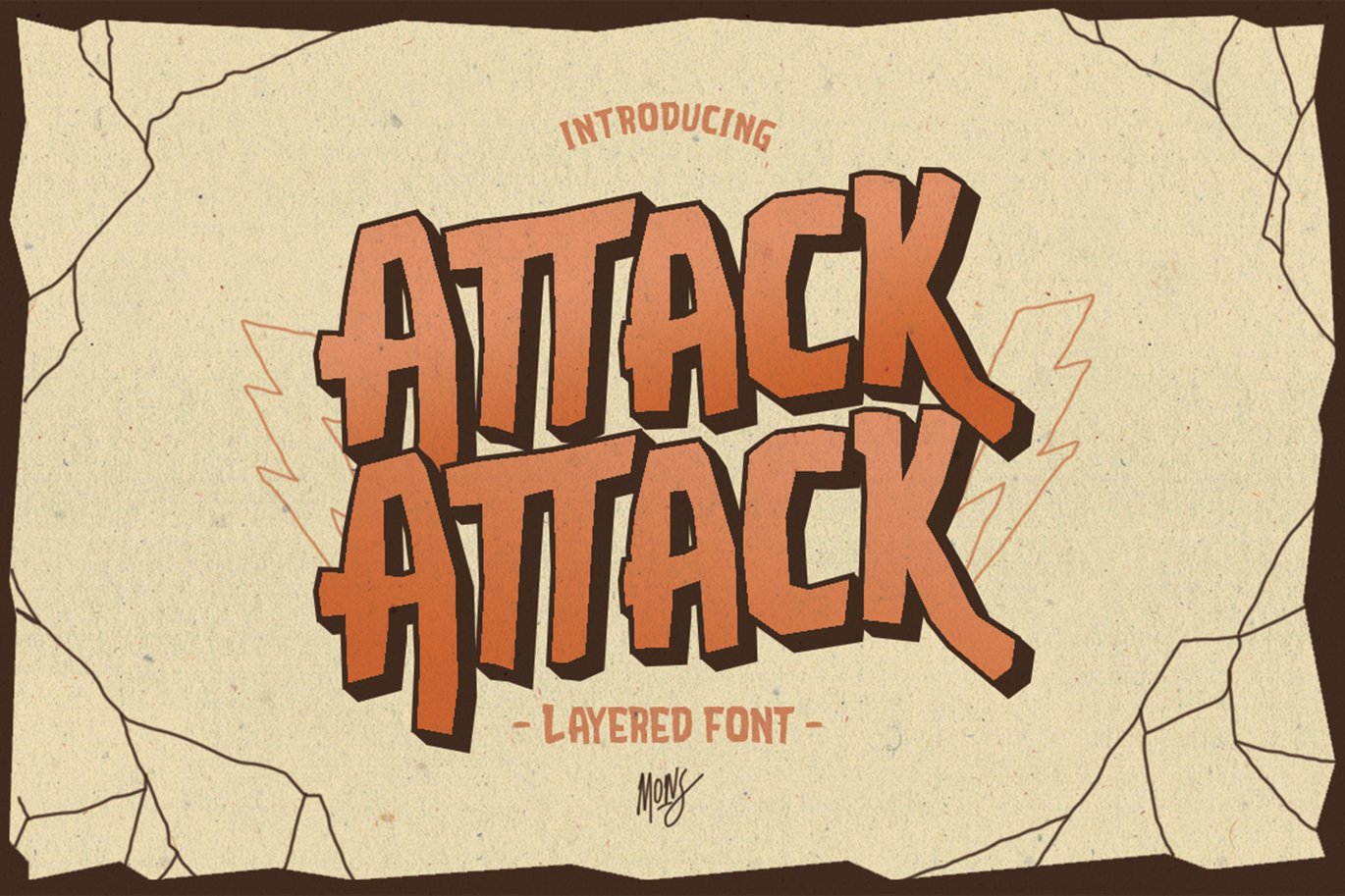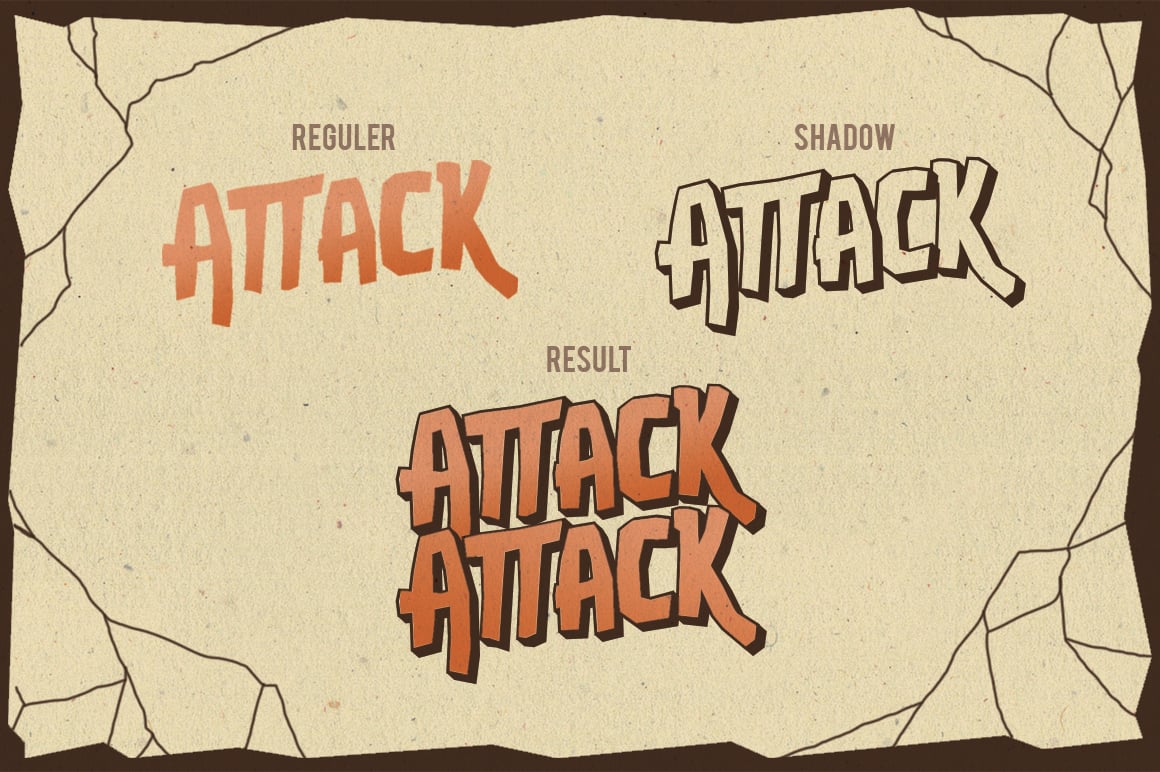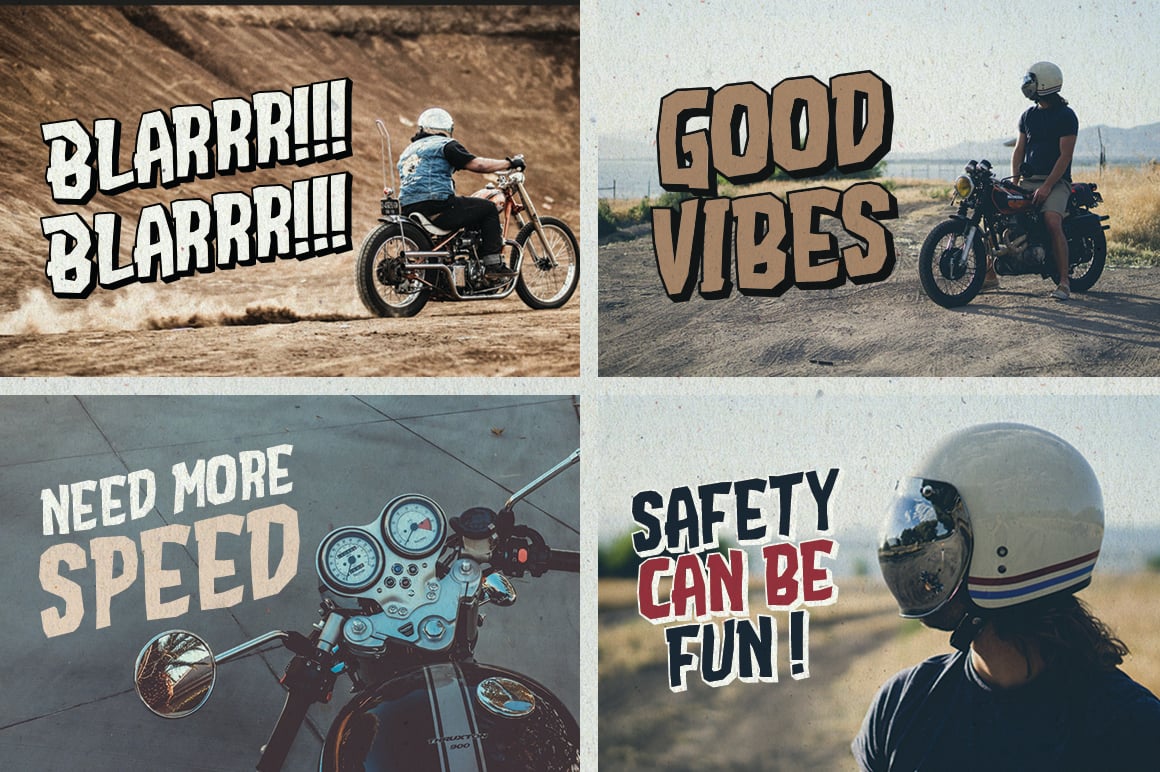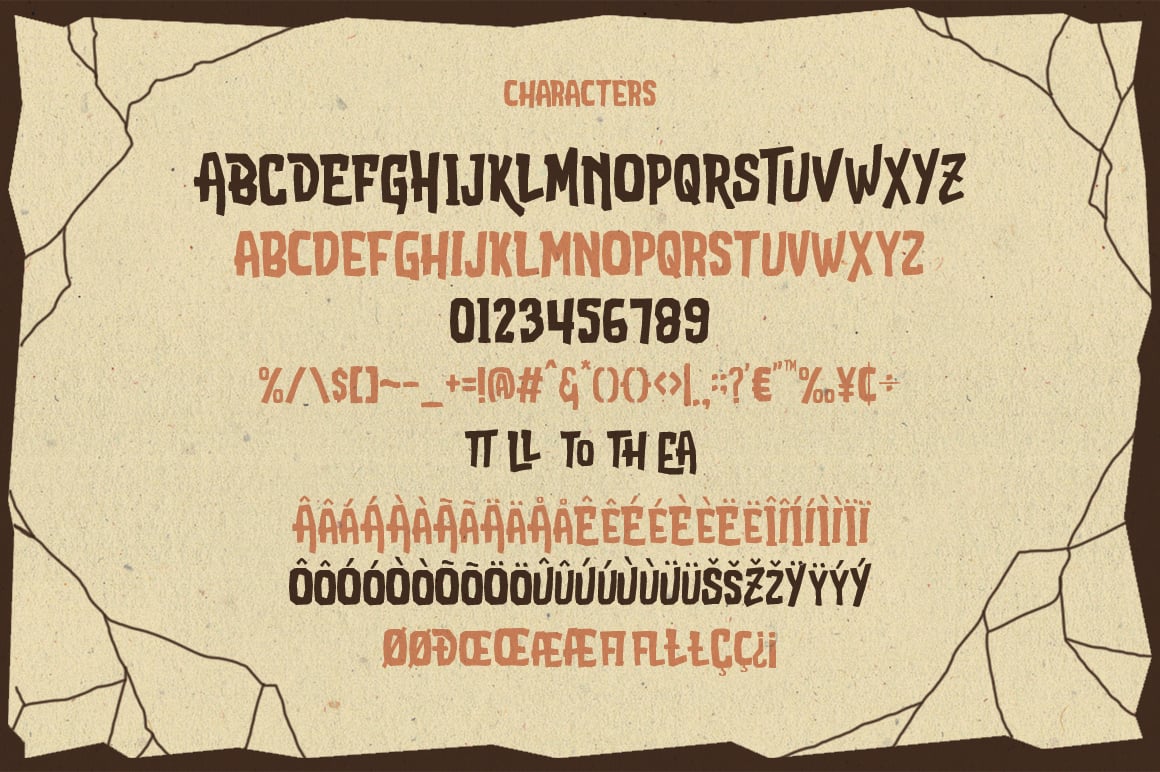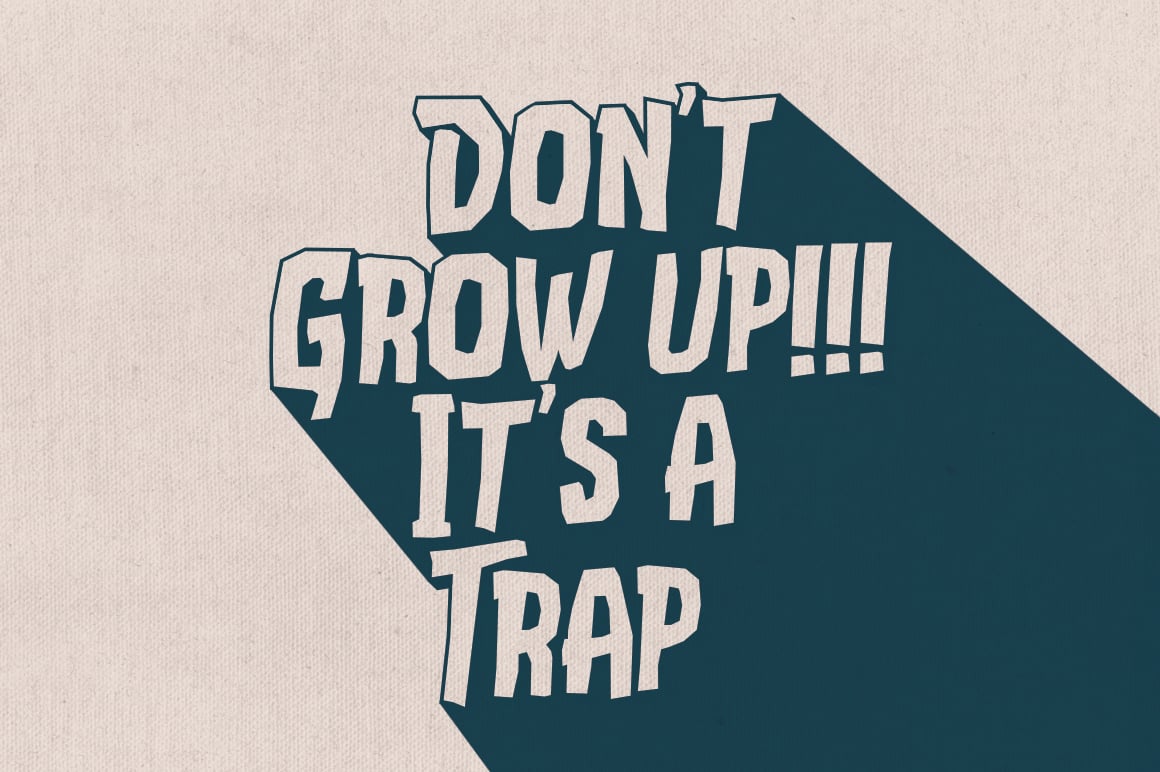
Attack-Attack Typeface
a ATTACK-ATTACK TYPEFACE
Hello I’m Coming again with New Layered Font. I think this font very unique for you cover book or your Title Poster and anymore. I hope this font can help your Graphic more be Better.
Reguler & Shadow Font
Uppercase & Lowercase
Punctuation & Number
Ligature
Multi Language Available (Latin)